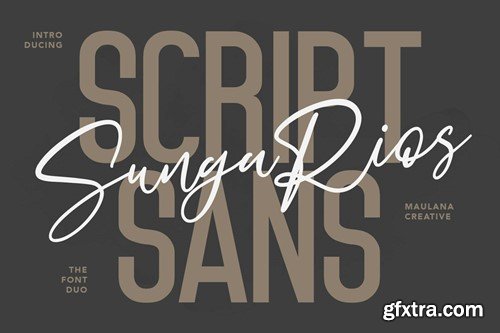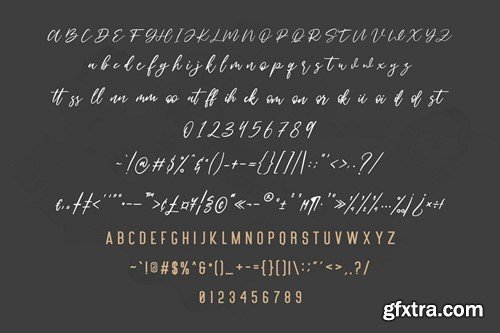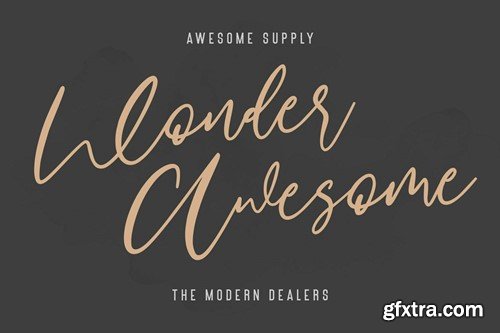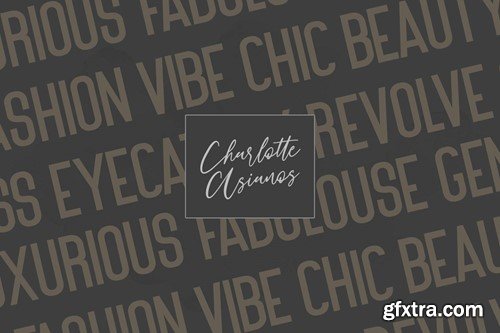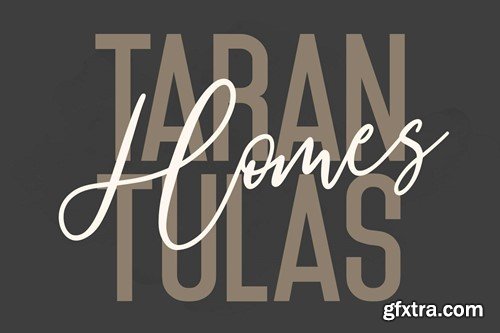
宋嘉罗字体双AABLNKC
Sungarios Font Duo AABLNKC
Sungarios Font Duo
Give your designs an authentic brush handcrafted feel. “Sungarios Font Duo” is perfectly suited to signature, stationery, logo, typography quotes, website header, branding and more.